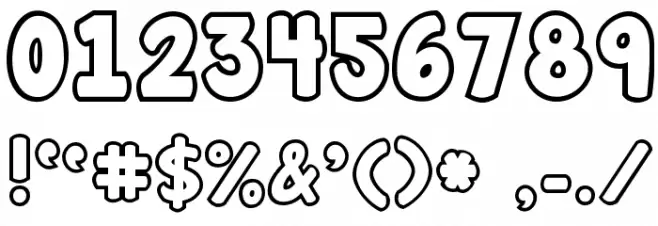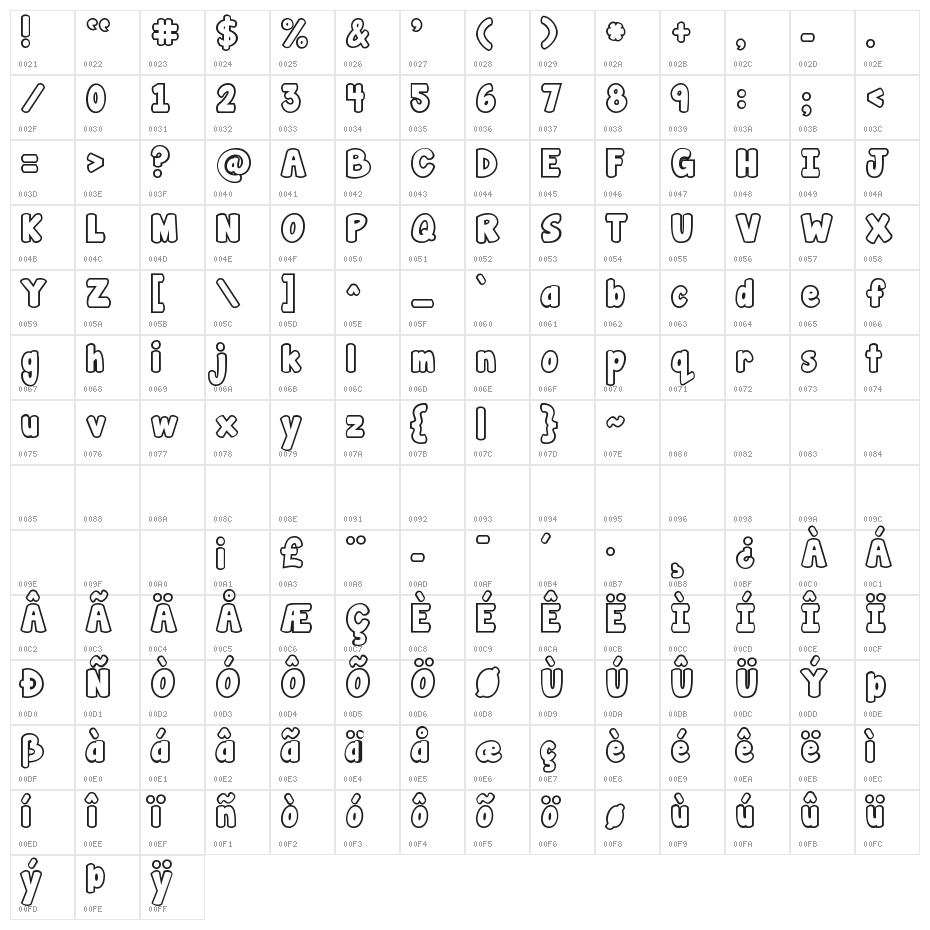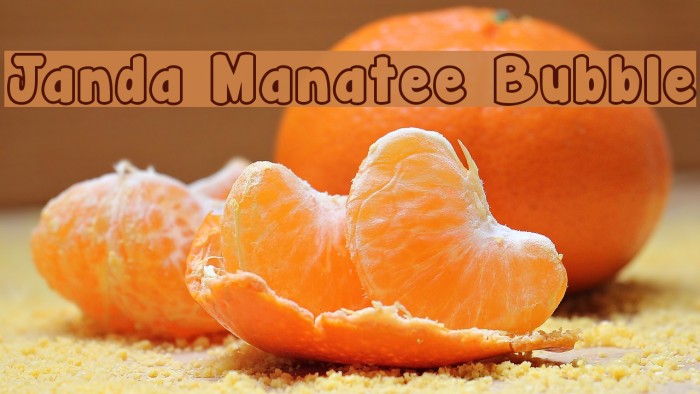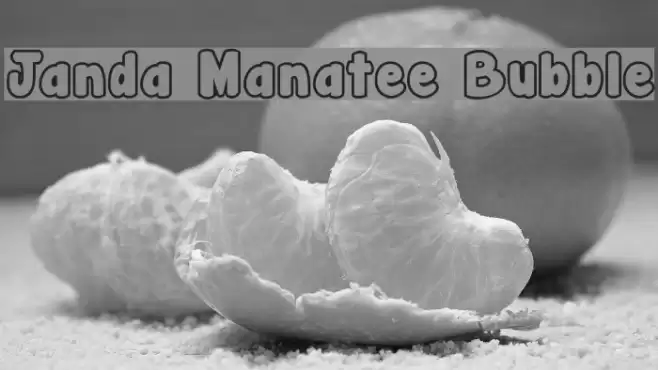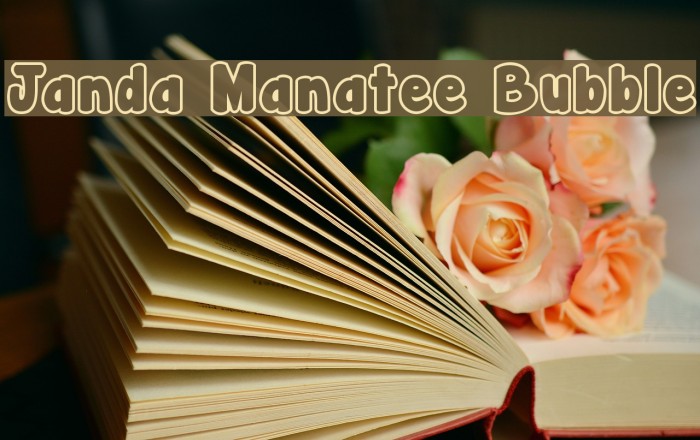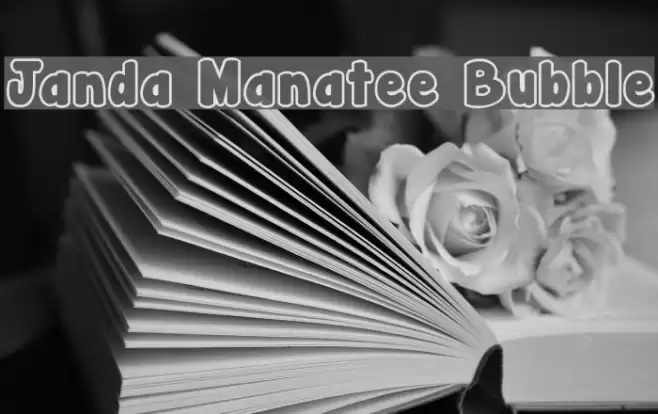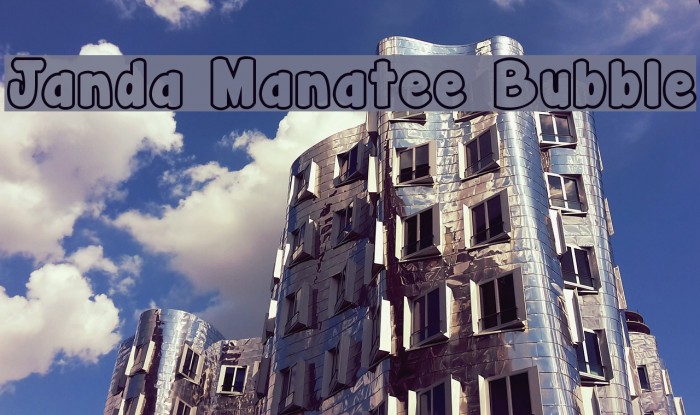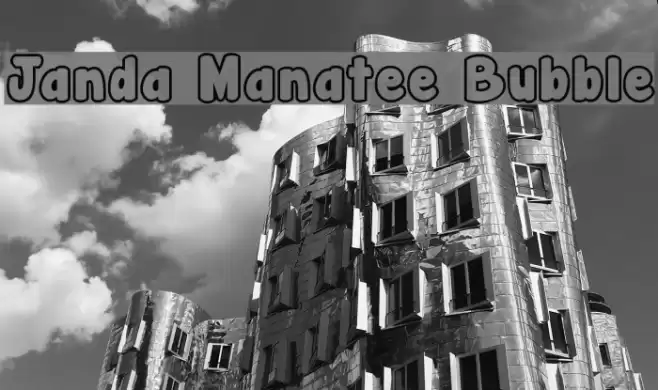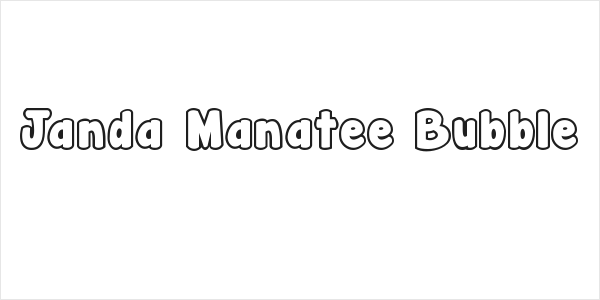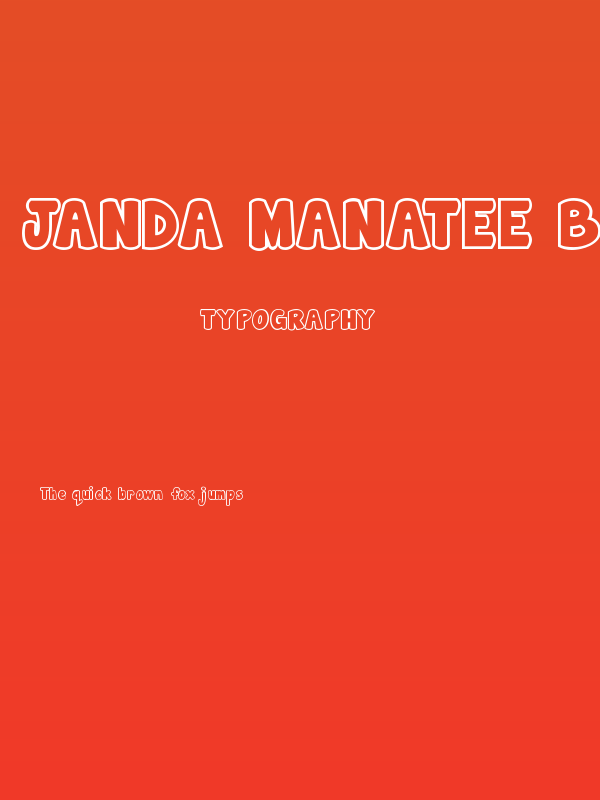
Janda Manatee Bubble Font
Janda Manatee Bubble Description
This playful and whimsical font features bold, rounded characters with a bubble-like outline that gives it a fun and approachable appearance. The letters are evenly spaced, with a consistent stroke width that maintains a uniform look across both uppercase and lowercase alphabets. The numbers and special characters follow the same bubbly style, making it ideal for projects that require a lighthearted and friendly touch. Its unique design makes it stand out, perfect for capturing attention in creative and informal settings.